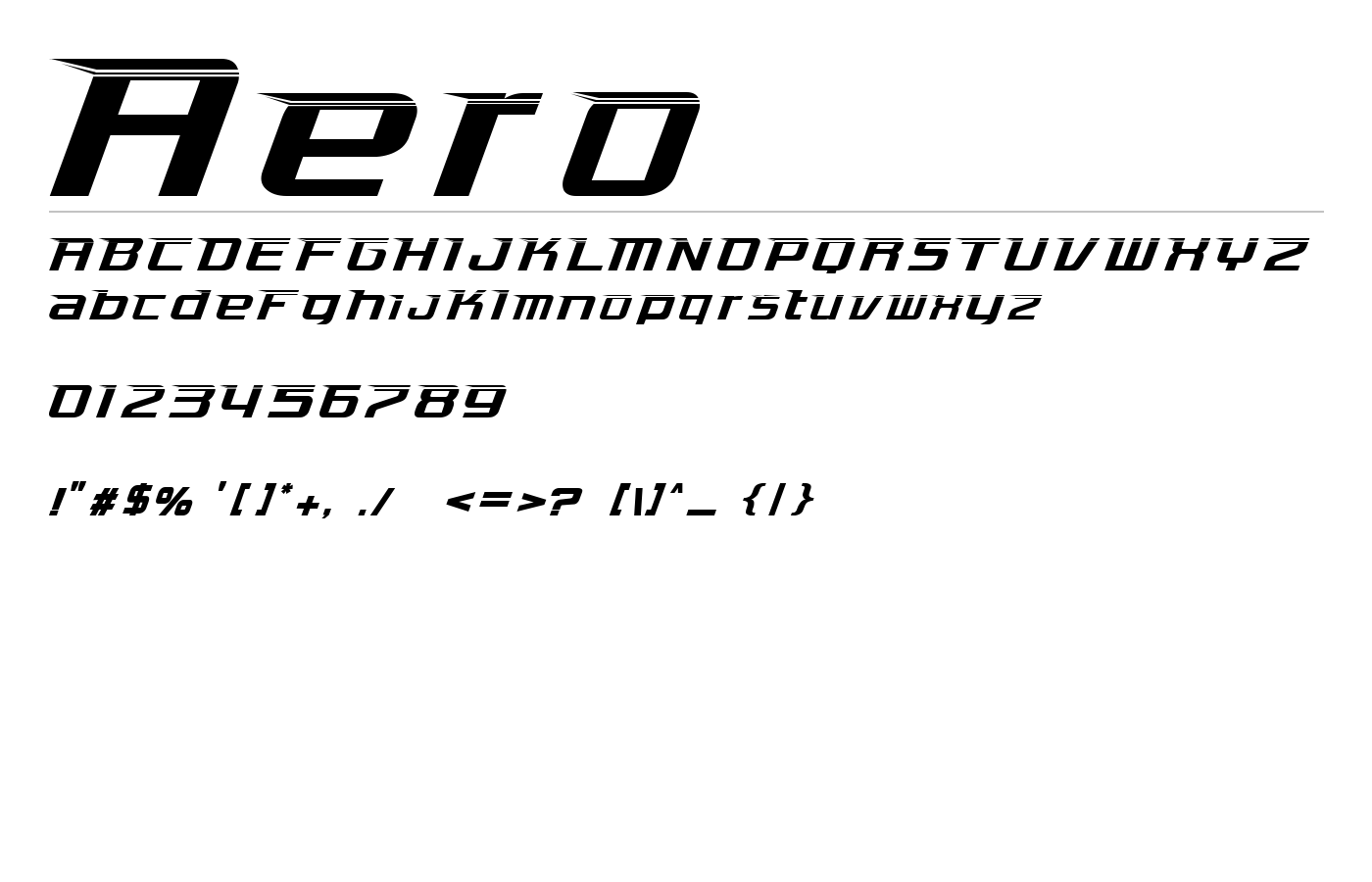
Aero is a sleek, futuristic sans serif font with a condensed, italicized style that exudes speed and modernity. Its sharp angled strokes and distinct horizontal lines create a dynamic, tech-inspired look, making it ideal for branding, sports, or technology-focused designs where a bold, energetic impression is desired. This font stands out in logos, headlines, and promotional materials seeking a cutting-edge, high-performance vibe.
Aero Font